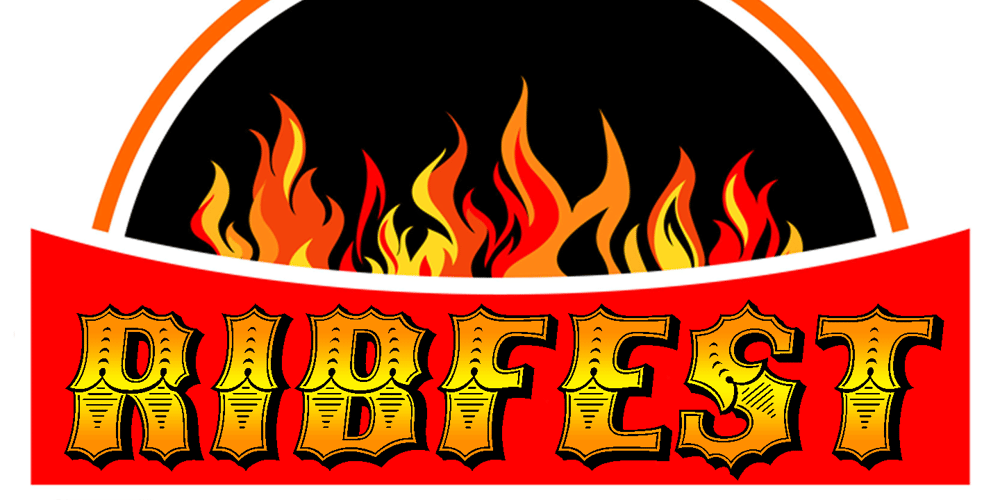
Ribfest Font Family was designed by Michael Hagemann and published by FontMesa. Ribfest contains 12 styles and family package options. Ribfest is a new font based on lettering found on old United States currency from the 1800’s. Named after the Ribfest held in Naperville IL over 4th of July weekend each year, this font will be perfect for your next summer barbecue party. Ribfest offers three Fill fonts that can be layered behind the main open faced fonts, the regular Fill font covers the complete opening on the main fonts while the Fill T for top and Fill B for bottom gives you the option to fill with two different colors for top and bottom. The Fill fonts for Ribfest may also be used as stand alone fonts, the Fill T and Fill B fonts when layered together creates a unique look on its own. Expand your summertime fun with Ribfest and save me some of those rib’s, with extra barbecue sauce please. Special Note: When using the Opentype format of Ribfest, if you experience some letters appearing too bold at point sizes of 36 or above please install the truetype version that came with your purchase. Due to the extra detail in this font some graphics drivers may increase the boldness of the Opentype version of this font, the solution is to uninstall the Opentype and install the Truetype version.